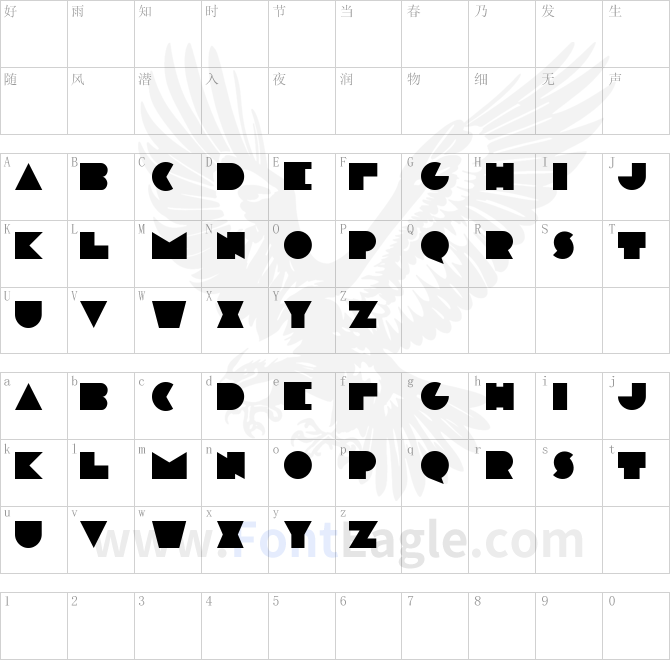
- Font name:Modern plate
Modern-plate is a great font, widely used in graphic design, single-page menu design, poster design and other fields, and is deeply loved by designers.Modern-plate download.